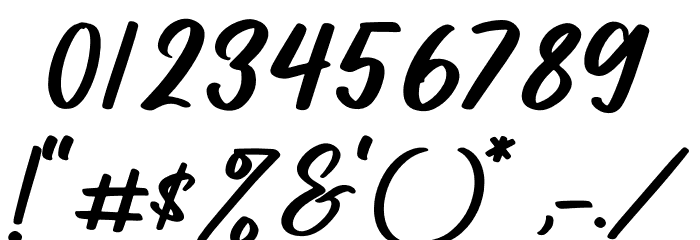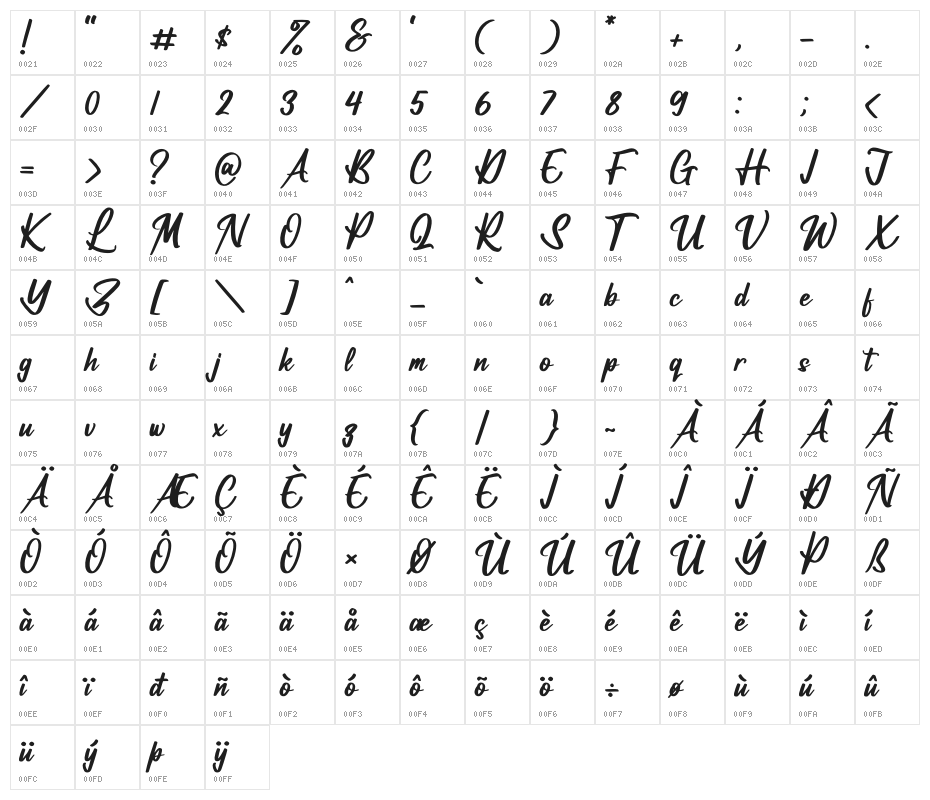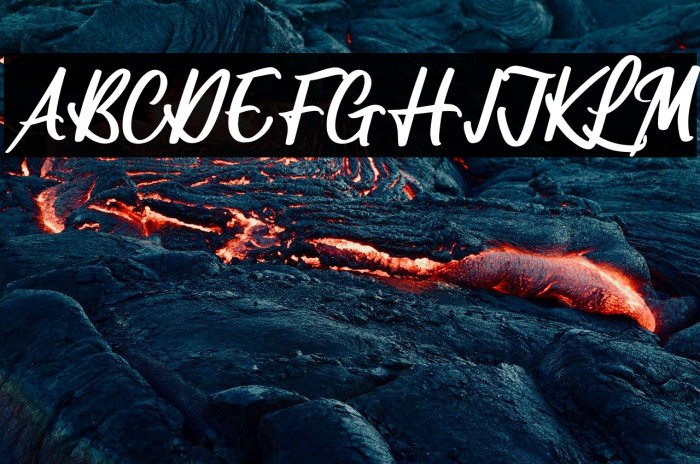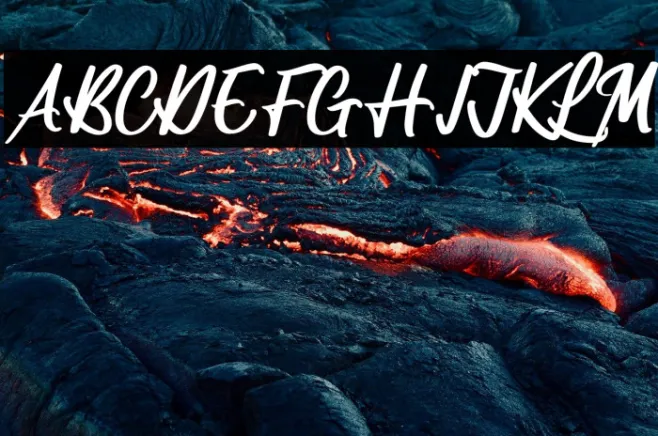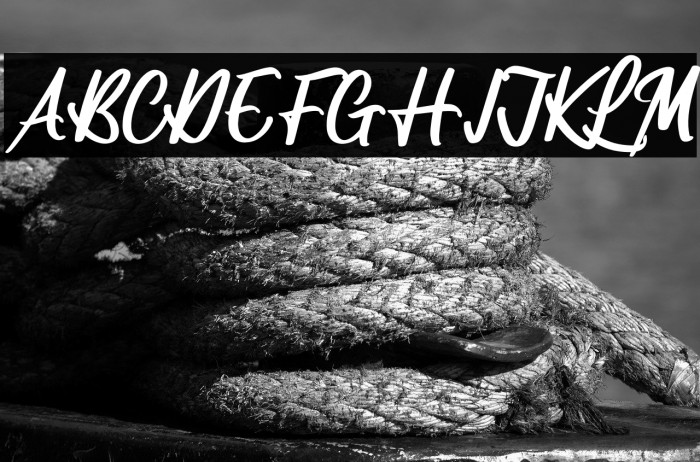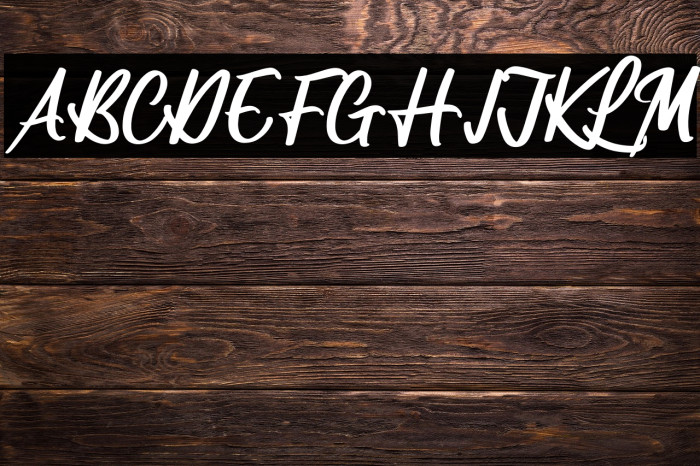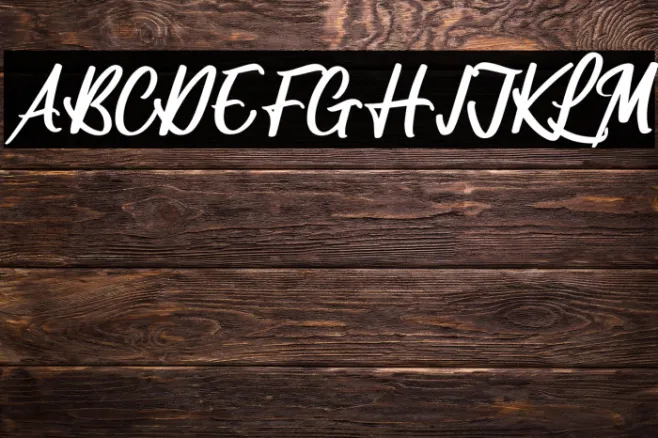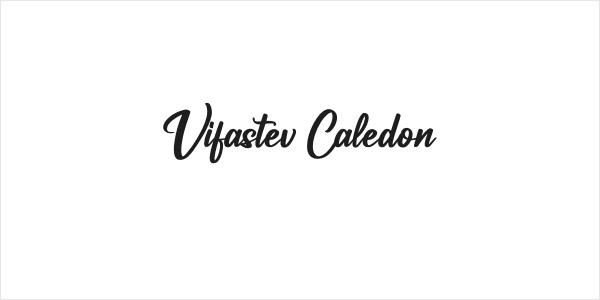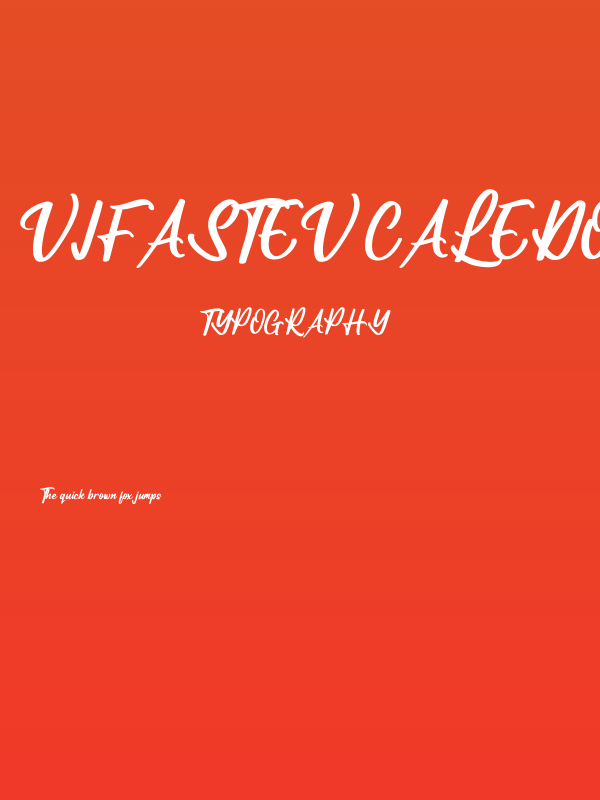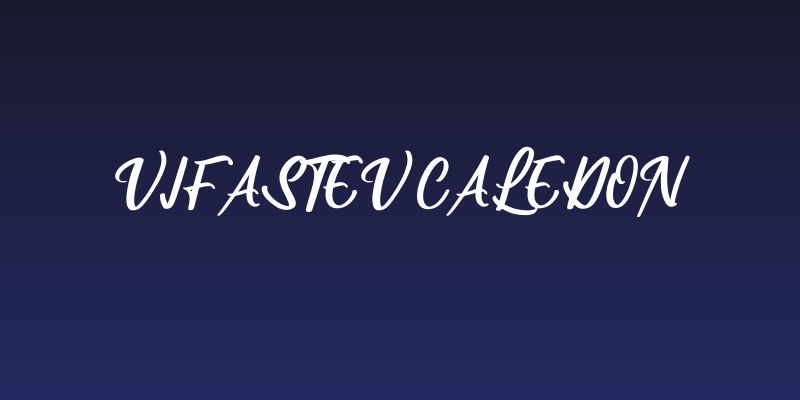
Vifastev Caledon Font
Vifastev Caledon Description
This font exudes a bold and dynamic script style, characterized by its flowing, cursive letterforms that convey a sense of elegance and movement. The uppercase letters are particularly striking, with their sweeping curves and dramatic flourishes, while the lowercase letters maintain a consistent rhythm and fluidity. The numerals are equally expressive, integrating seamlessly with the overall style. Special characters are thoughtfully designed, adding to the font's versatility. Its bold weight and high contrast between thick and thin strokes enhance its visual impact, making it ideal for attention-grabbing designs.
| Proposed Projects | Ideal for branding, invitations, posters, and any design requiring a touch of elegance and flair. |